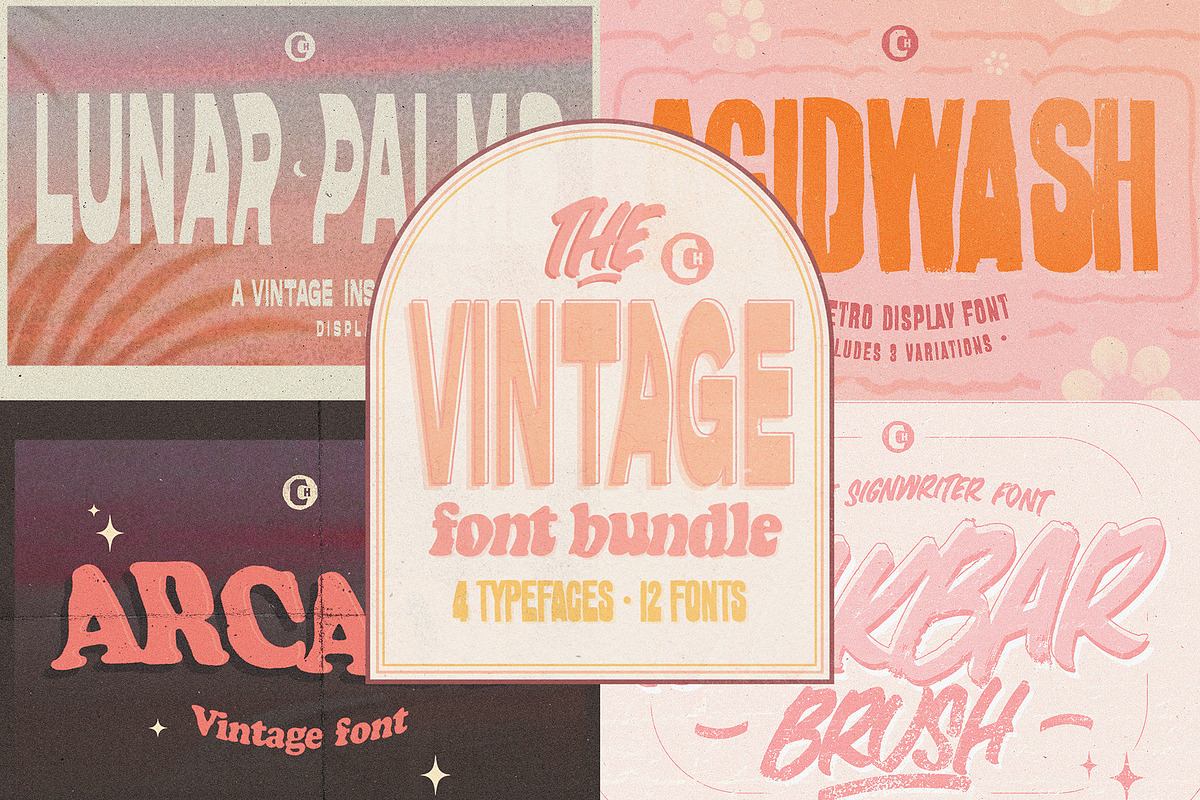
The THE VINTAGE Font Bundle Free Download is a comprehensive collection of stylish and nostalgic fonts, inspired by vintage design trends. Perfect for creating retro branding, logos, posters, packaging, and other creative projects, this bundle offers a variety of font styles that capture the essence of classic typography while maintaining a modern appeal.
This bundle includes a mix of display fonts, script fonts, and serif fonts, all designed to give your designs a timeless, vintage flair. With multiple font styles, weights, and additional design elements, this collection is highly versatile for all types of creative work.